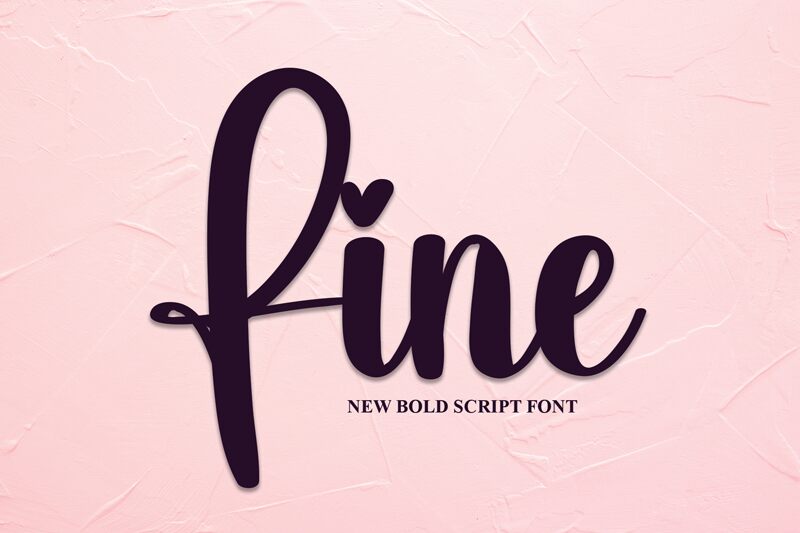
Fine
Fine, designed by Scratchones, is a handwritten font that exudes a personal touch with each carefully crafted character. Its flowing lines and elegant swashes encapsulate a balance of sophistication and approachability, making it an ideal choice for those seeking to add an intimate flair to their creative endeavors. The aesthetic appeal of Fine lies in its organic structure—each letter appears as though penned by a skilled calligrapher.
This font's style lends itself beautifully to invitations, branding, and editorial design where a touch of human presence is desired. Its legibility and artistic charm make it versatile for both digital and print mediums, allowing designers to explore a range of applications from logo design to personalized stationery.
Embrace the allure of Fine for your next project and let its distinctive handwritten quality elevate your designs with grace and authenticity.